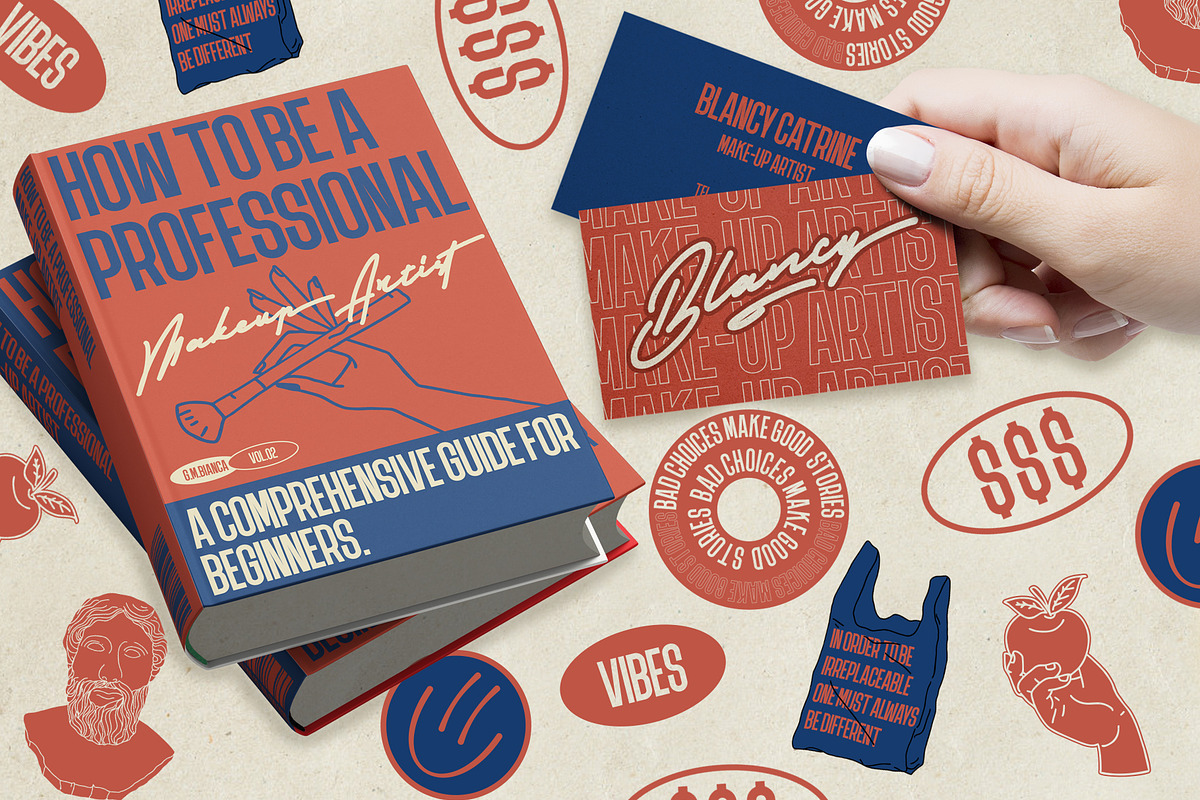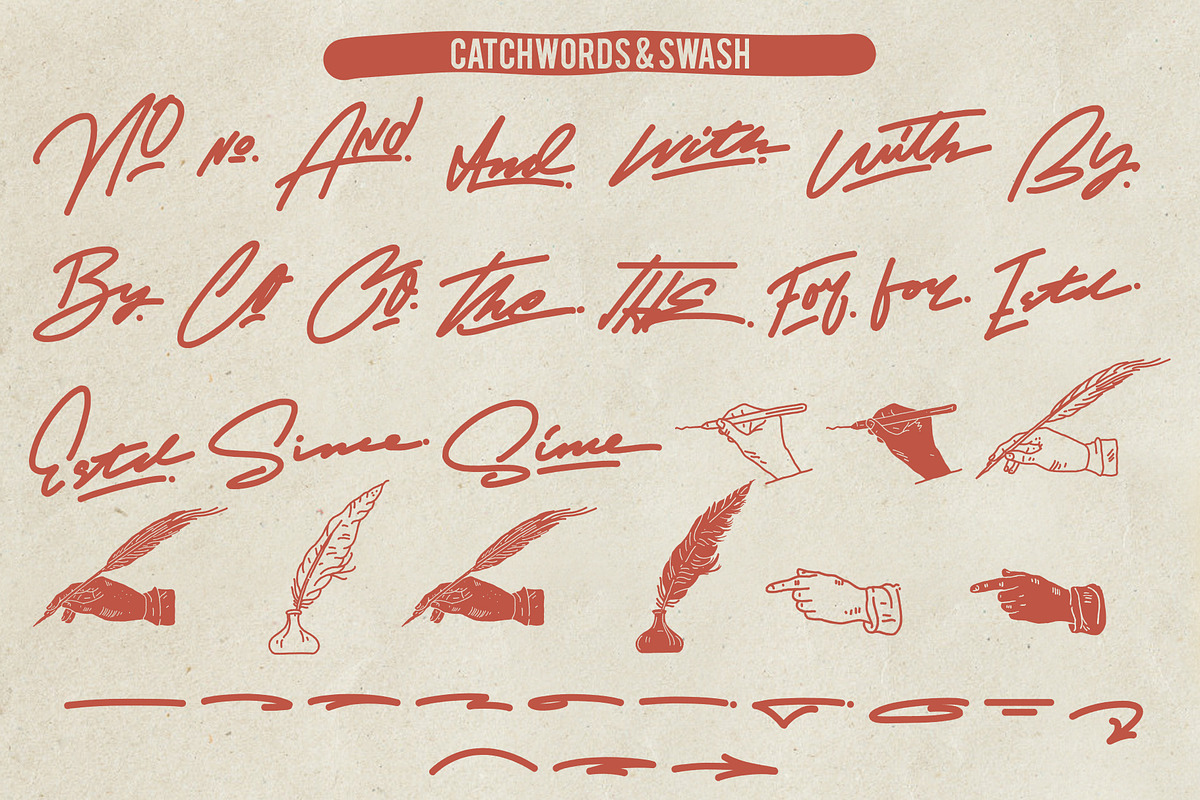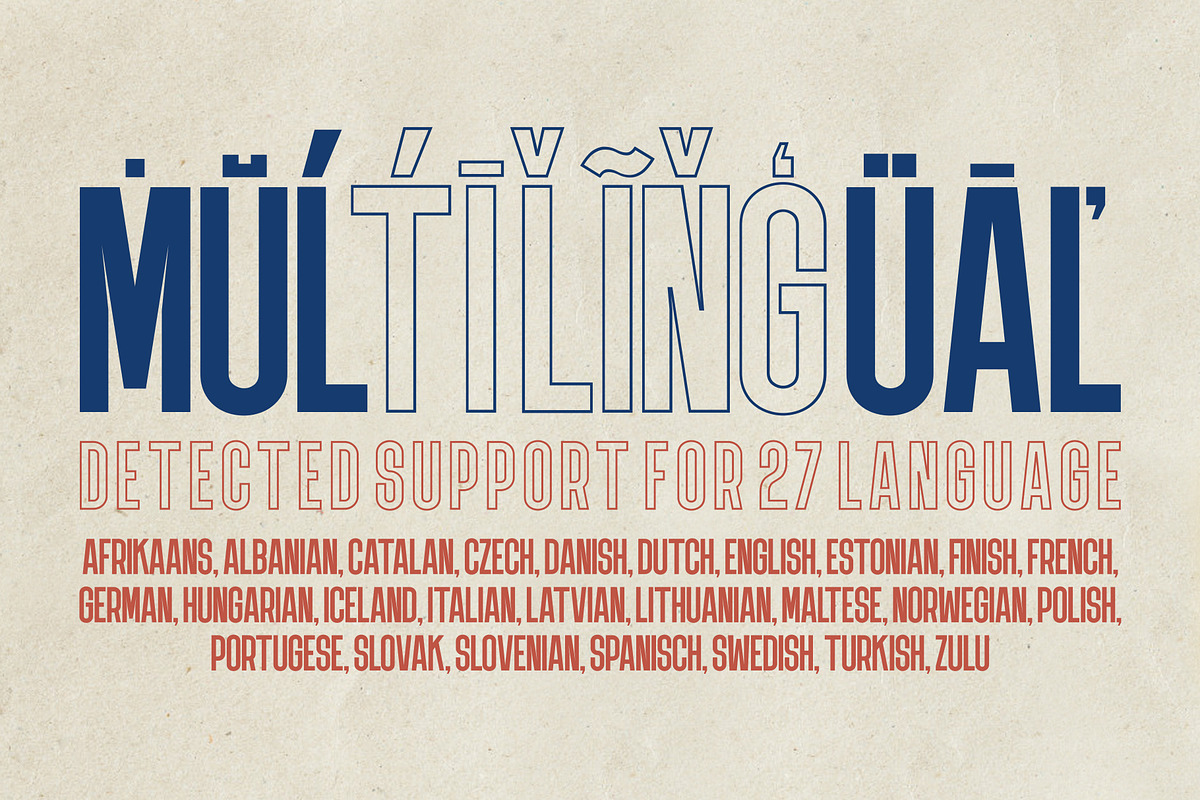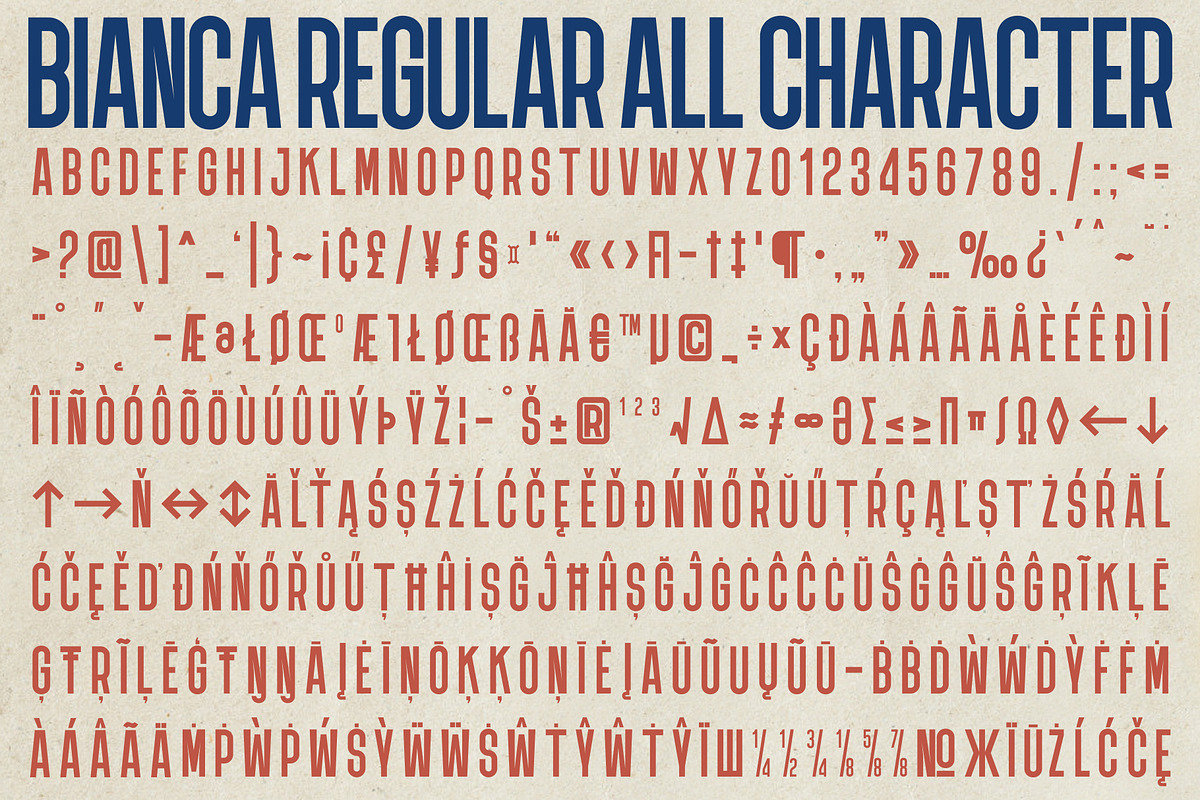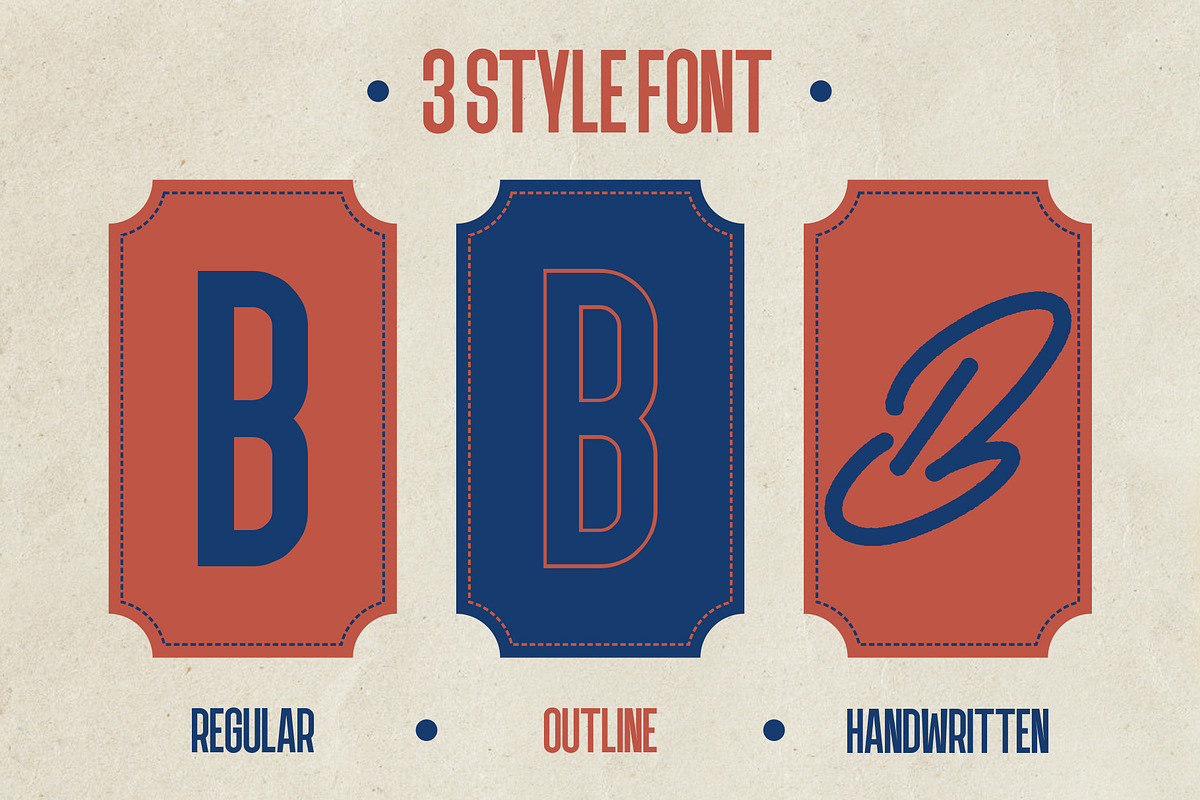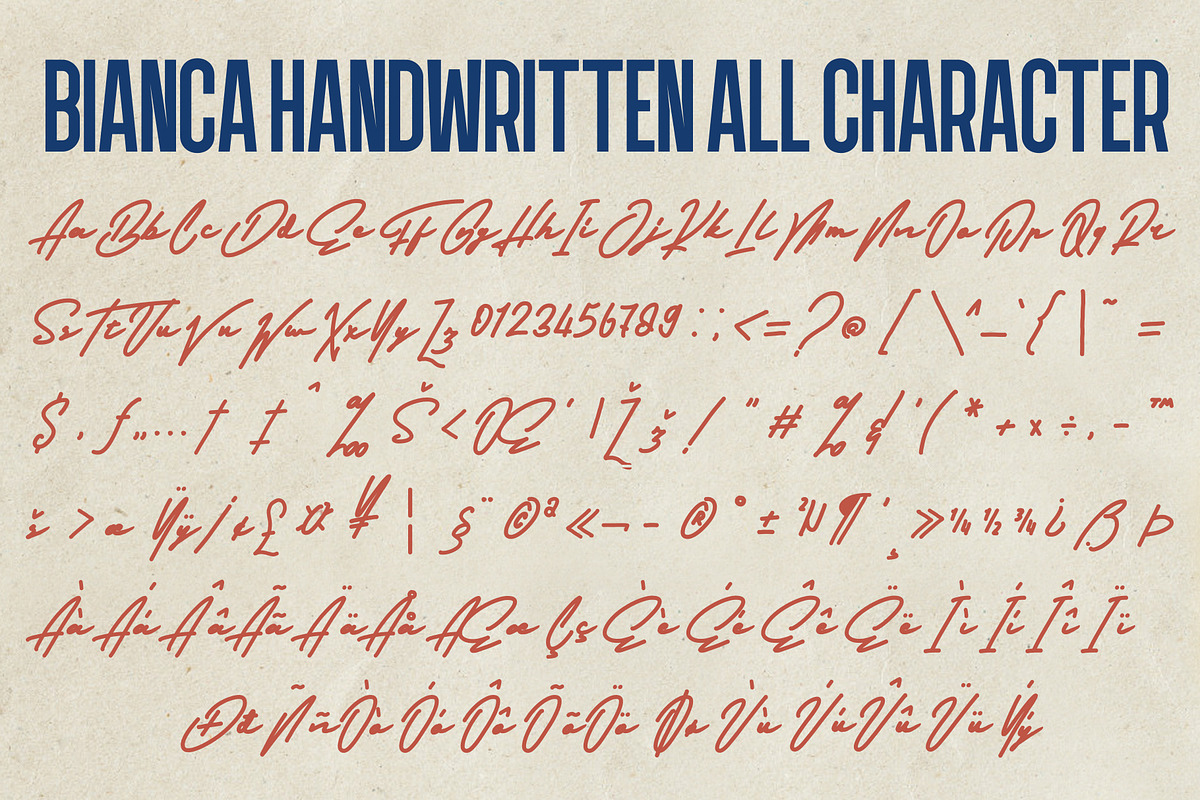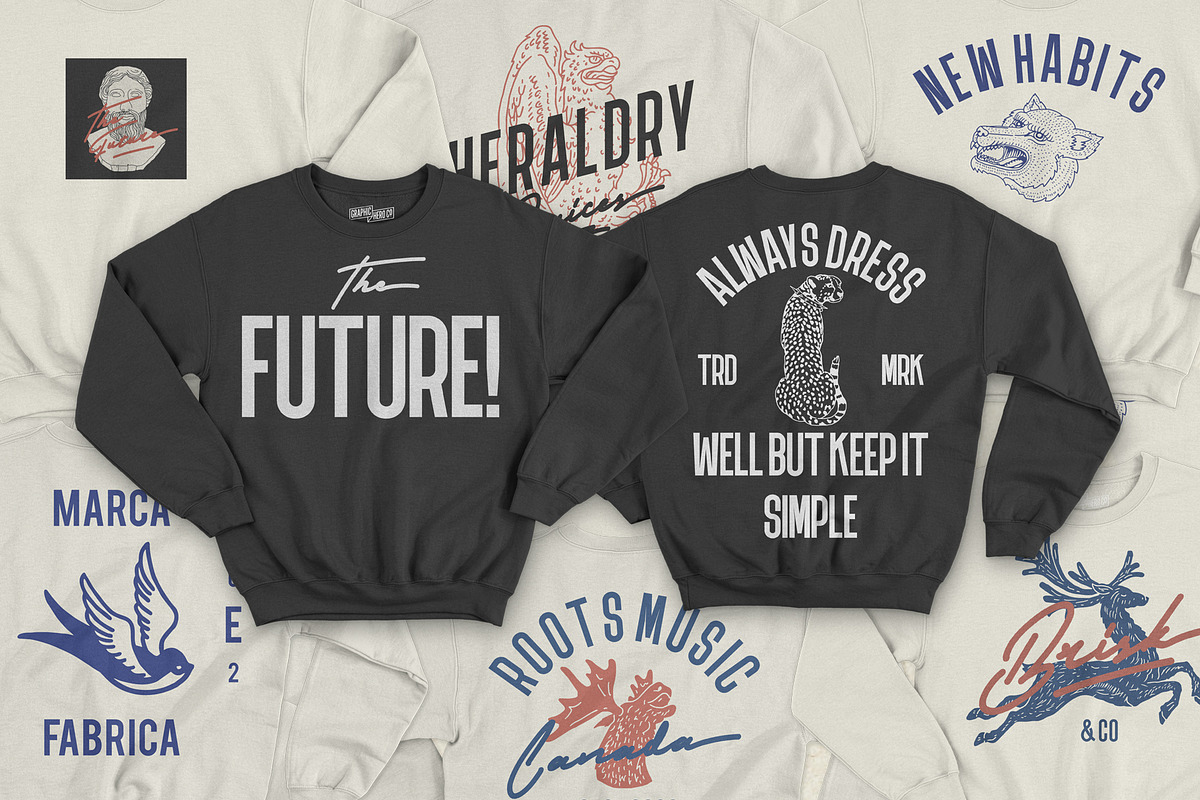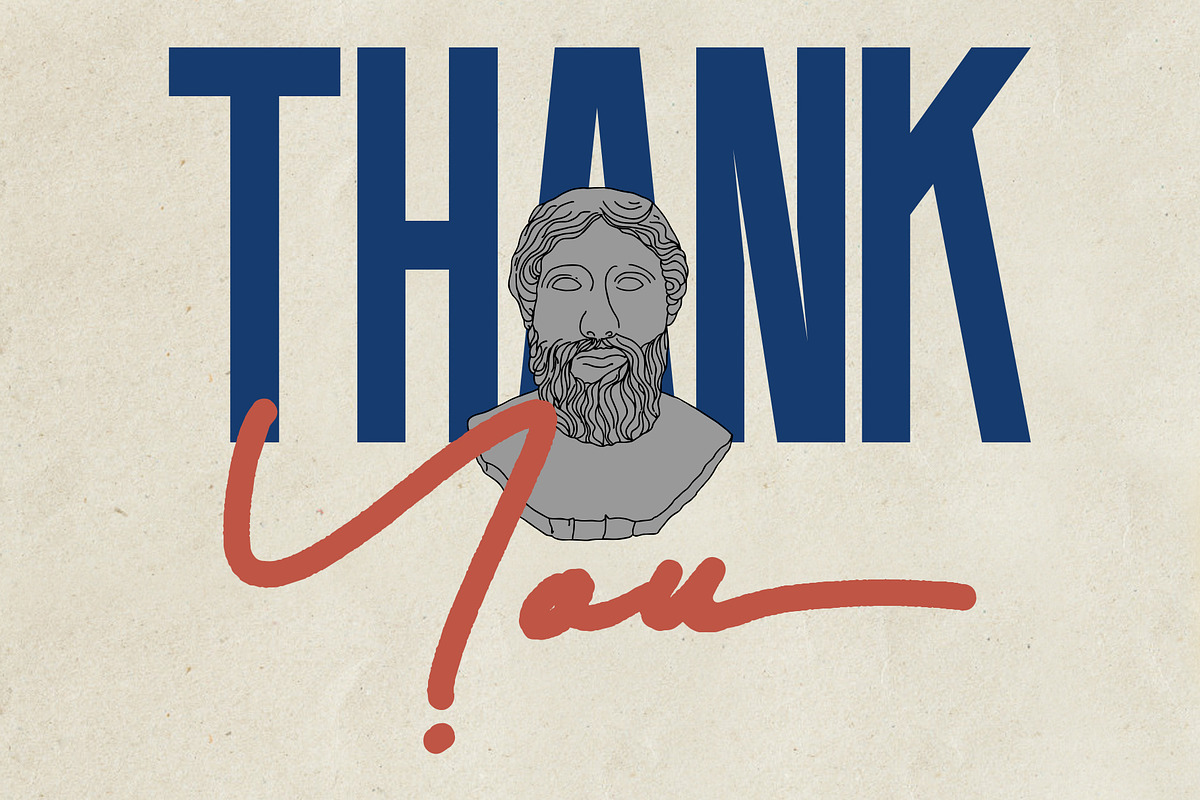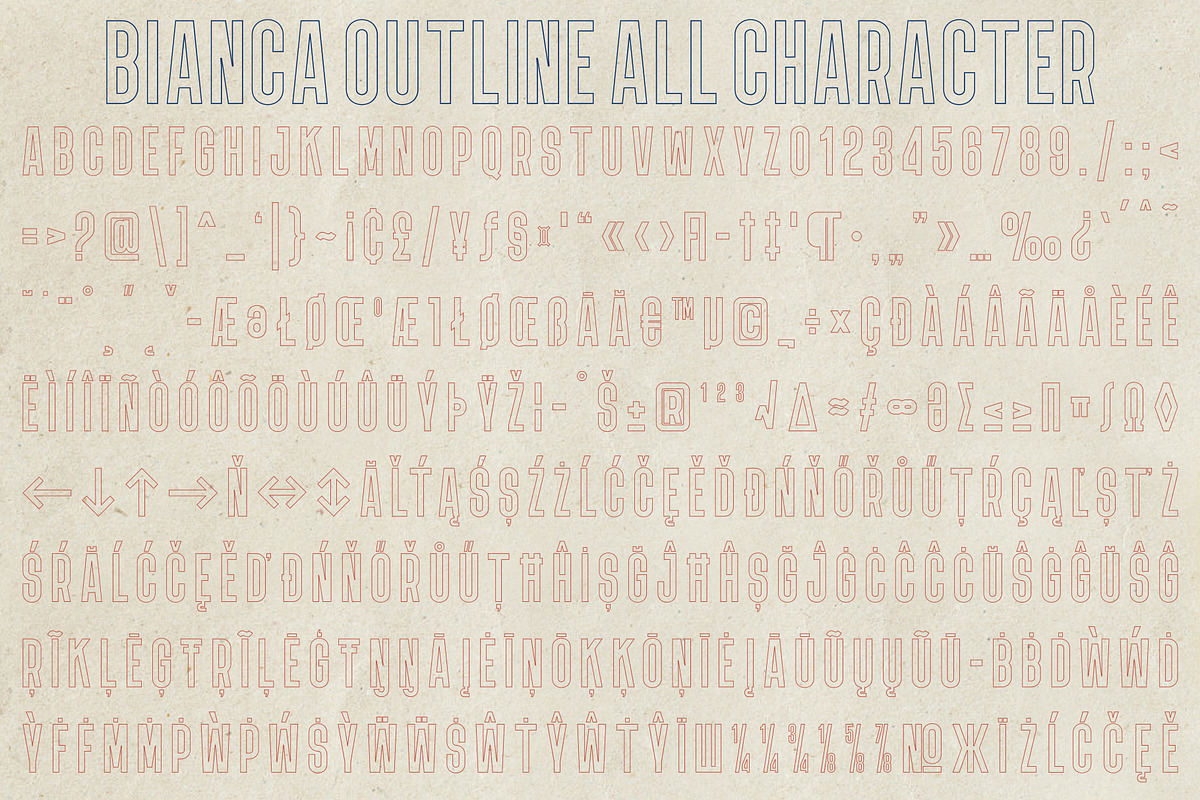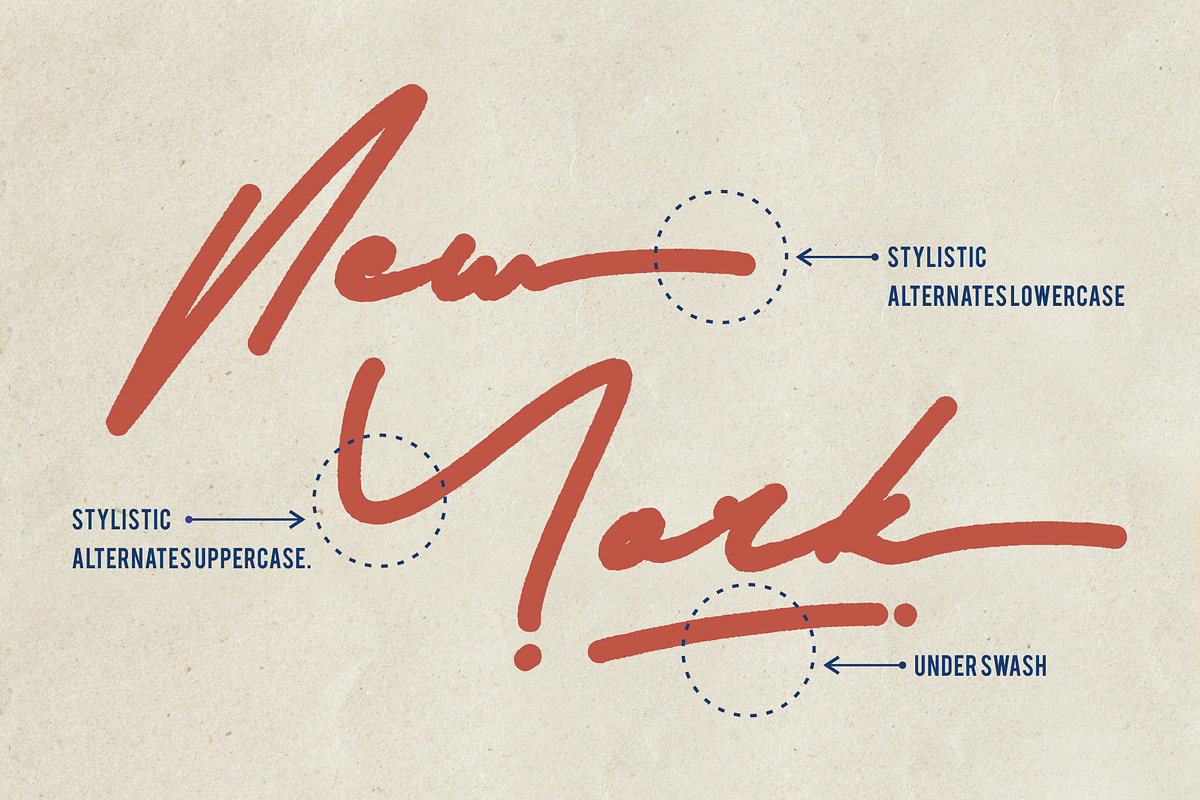
Bianca Font Duo + Vector Pack
Bianca is a duo font that is very suitable to be combined with current fashion themes. combined with a number of illustrations and it makes a more beautiful look, these beautiful fonts will be perfect to combine in your design. Suitable for t-shirts, prints, magazine or book cover, business cards, material branding, poster quotes, Clothing, wedding invitations, blog posts, social media, digital letters, and many more interesting!